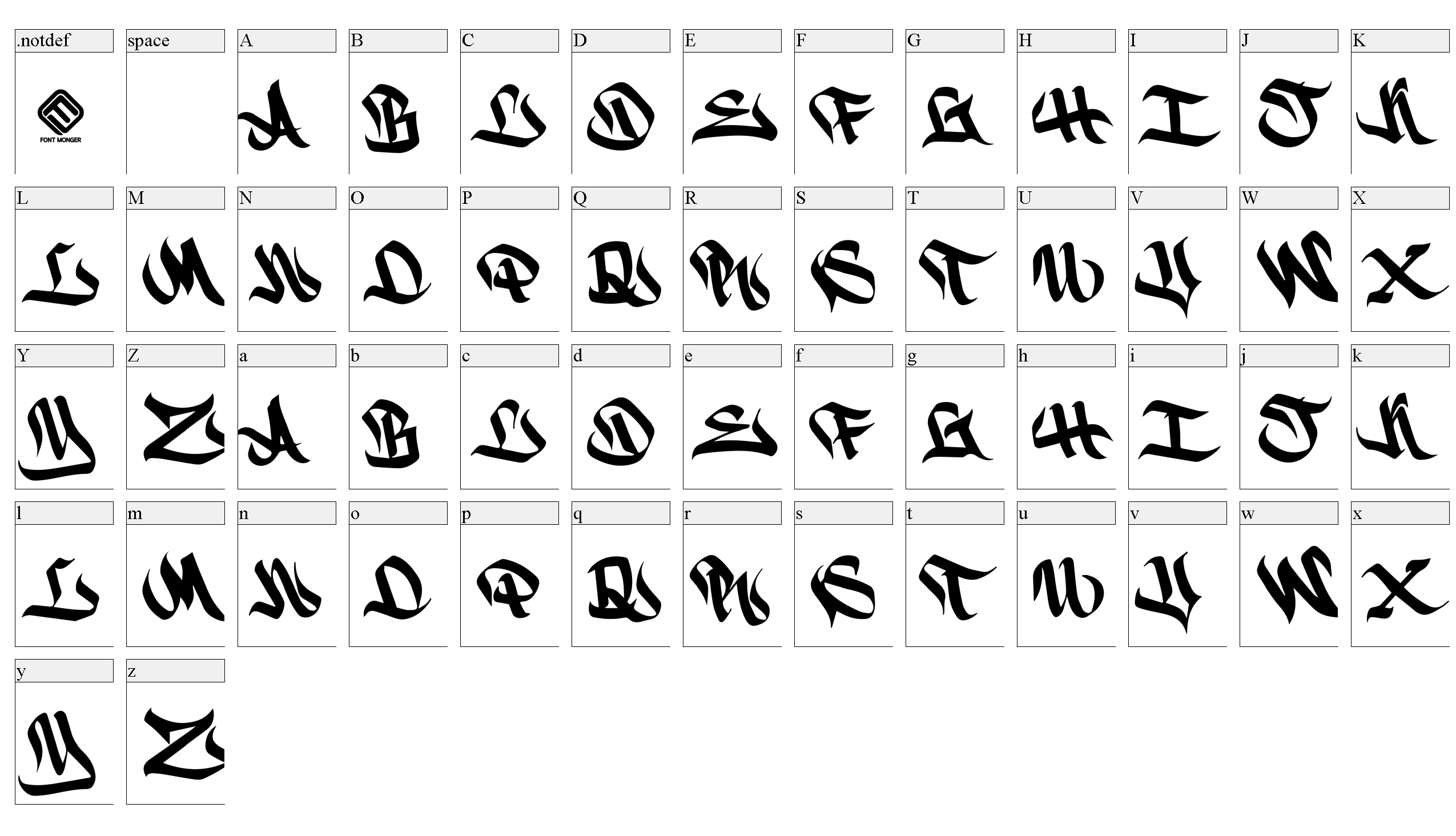
Hazard One: A calligraphy style graffiti font combines the elegance of traditional calligraphy with the bold, edgy style of graffiti lettering. This typeface features flowing, ornate script with expressive strokes and flourishes, often rendered in a graffiti-style lettering with sharp angles, bold lines, and spray-painted texture.
The font is designed to convey a sense of artistic expression, rebellion, and creativity. It can be used in designs that require a balance of elegance and street-style grit, such as urban-themed posters, event flyers, or music album covers. The combination of calligraphy and graffiti elements creates a unique and eye-catching aesthetic, with a handcrafted feel that adds personality and character to any project.
Calligraphy style graffiti fonts come in a variety of designs and variations. Some feature more traditional calligraphy elements, while others may be more heavily influenced by graffiti lettering. The font can be customized with different colors, styles, and effects to suit the needs of the project. Overall, a calligraphy style graffiti font is a versatile and dynamic option for designers looking to make a statement with their typography.
Lowercase: Same as uppercase
Numbers: No
Punctuation: No
Symbols: No
Accents: No
Style: Graffiti